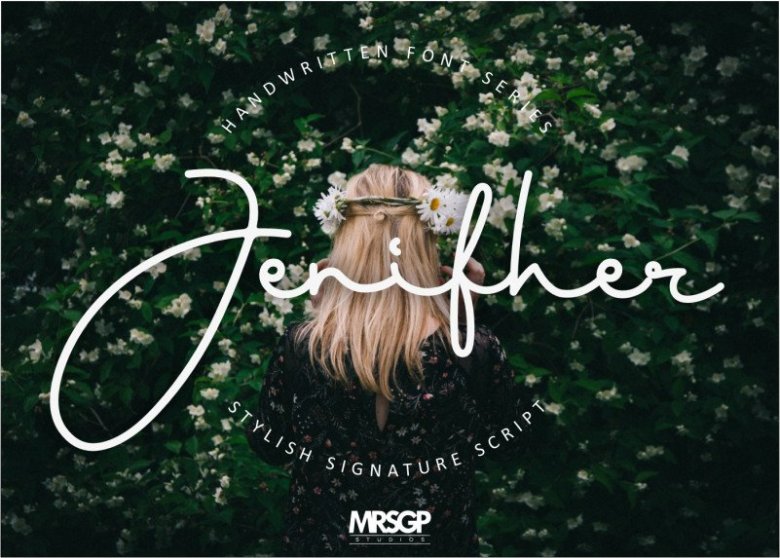
Jenifher Signature Script Font
Hi Welcome! Thank you for looking Jenifher Font. This is a natural handwritten font. This handwritten script has been attentively written, with gentle curves to produce a font thats completely distinctive and original! It’s designed by MRSGP STUDIOS.
Jenifher Signature is perfect for branding projects, logo, wedding designs, social media posts, advertisements, product packaging, product designs, label, photography, watermark, invitation, stationery and any projects that need handwriting taste.